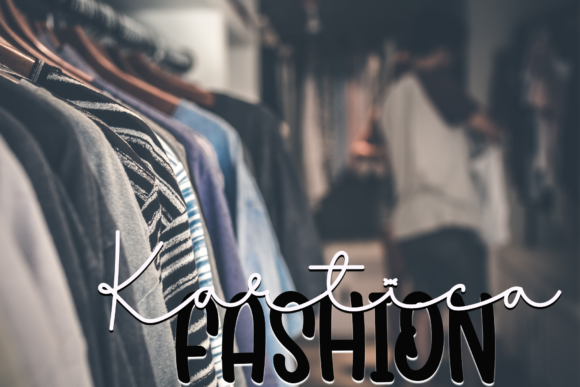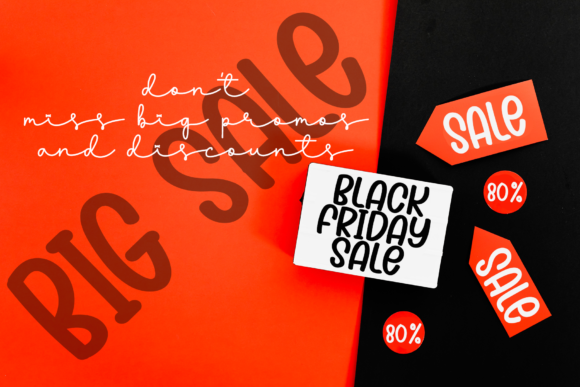
Baby Mermaid Font
db-ku.com - Script & Handwritten -- Baby Mermaid consists of two fonts designed to complement each other perfectly. Together or apart, these fonts are ideal for adding a chic and cheery touch to your crafts.